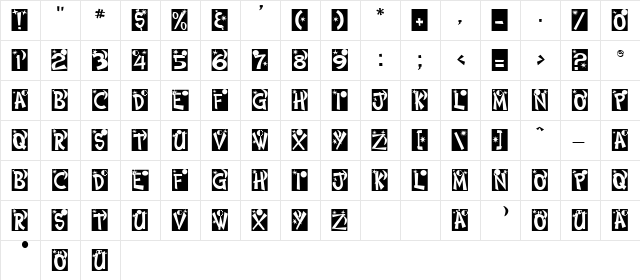
Himmel DB Normal
Design Context for Himmel DB Typeface
Himmel DB is a composed and adaptable typeface that performs quietly and consistently across a wide range of design contexts.